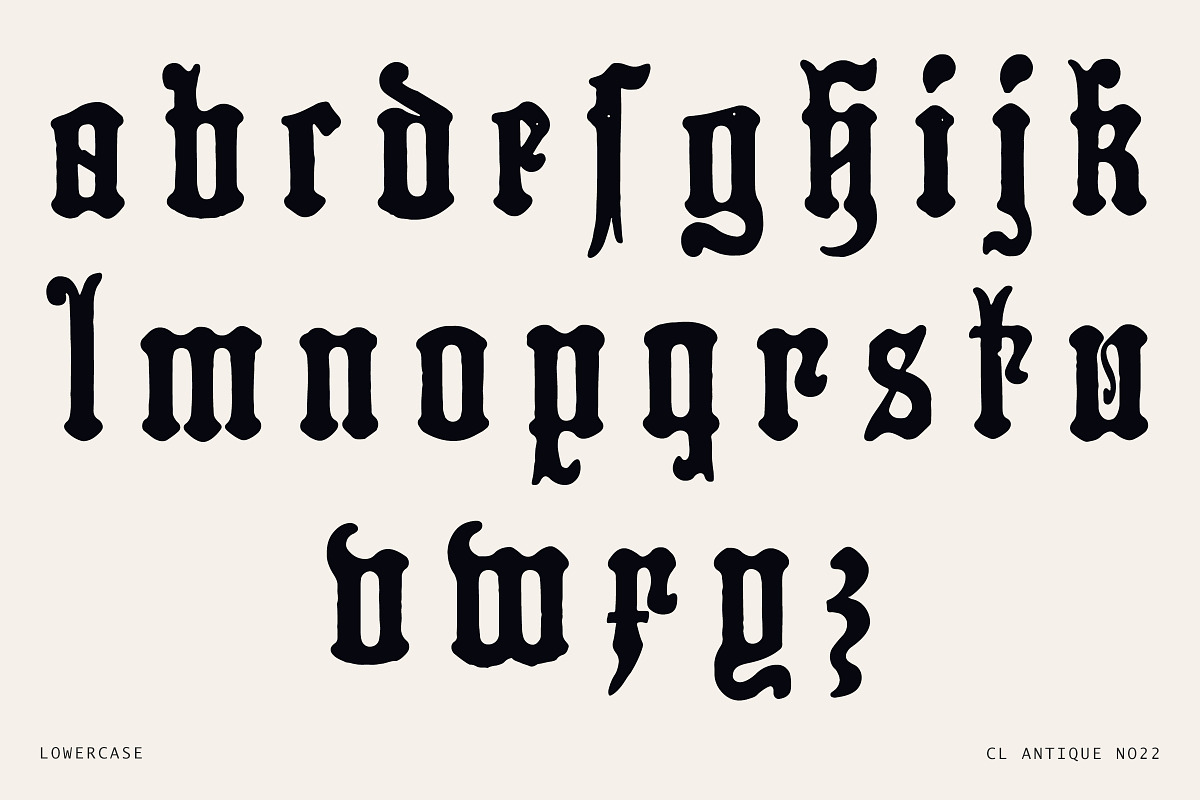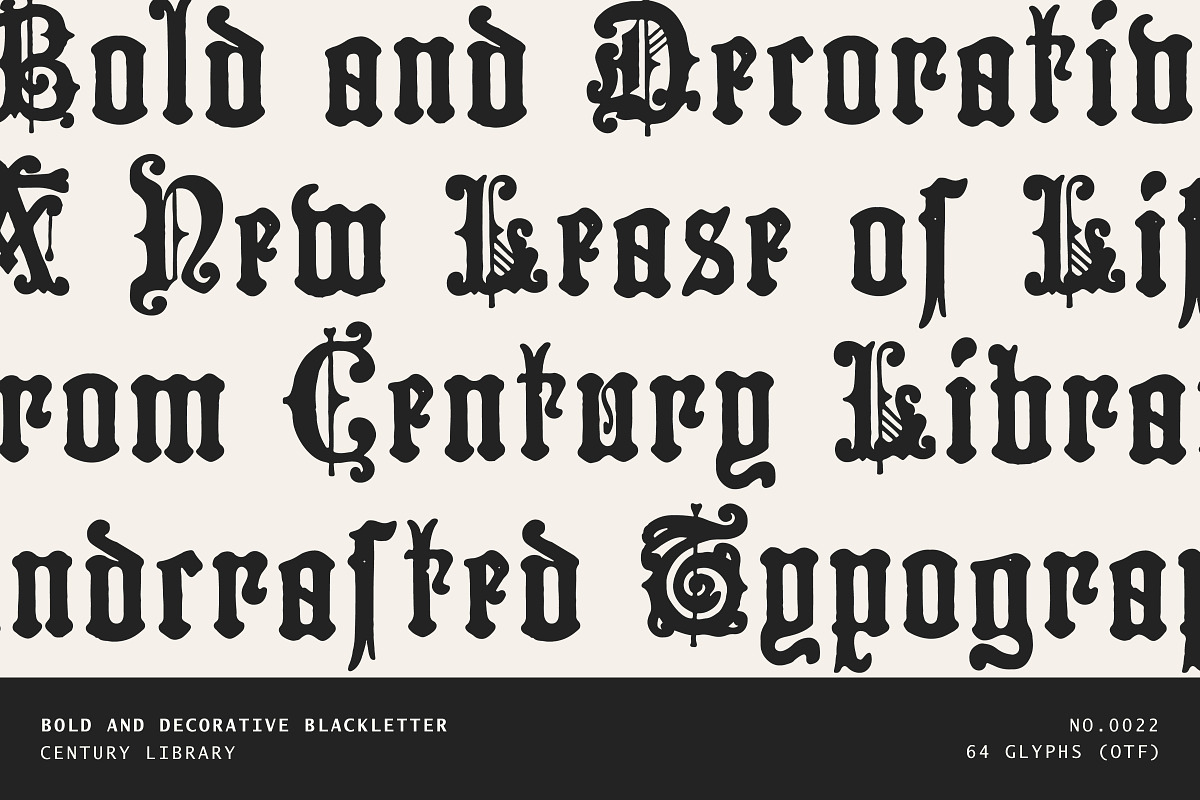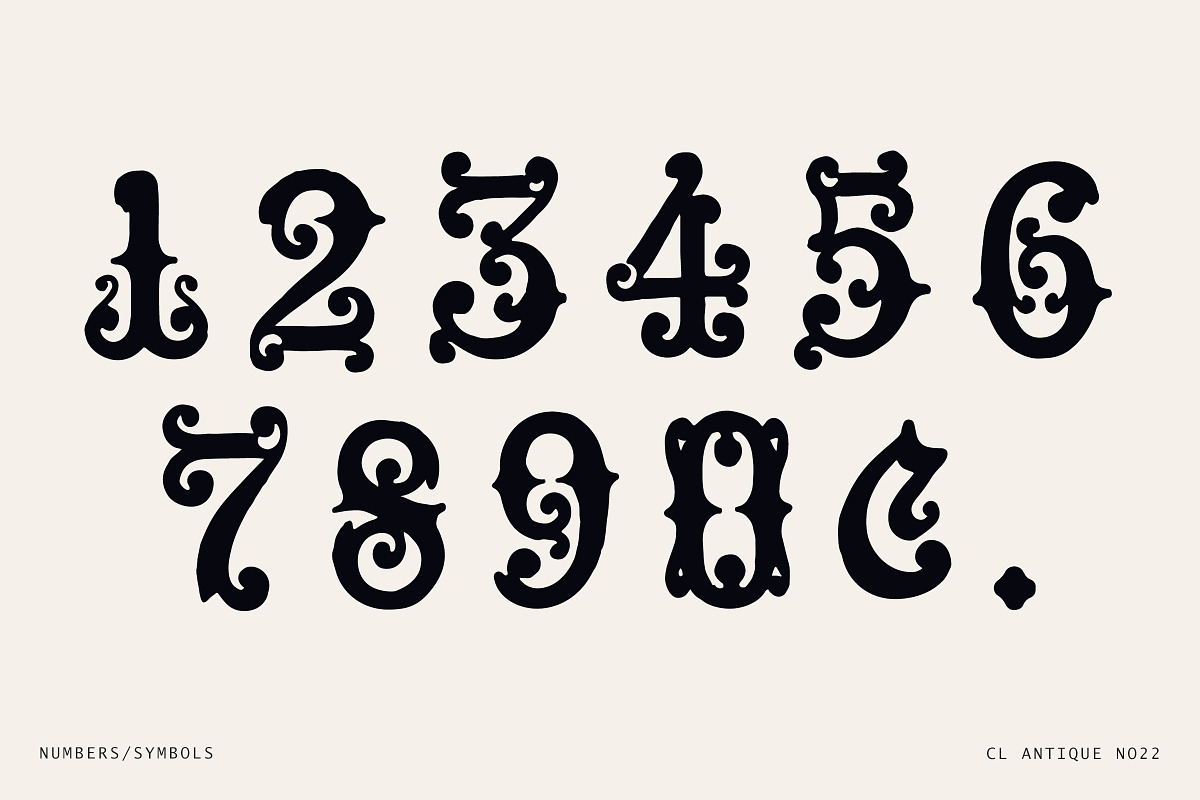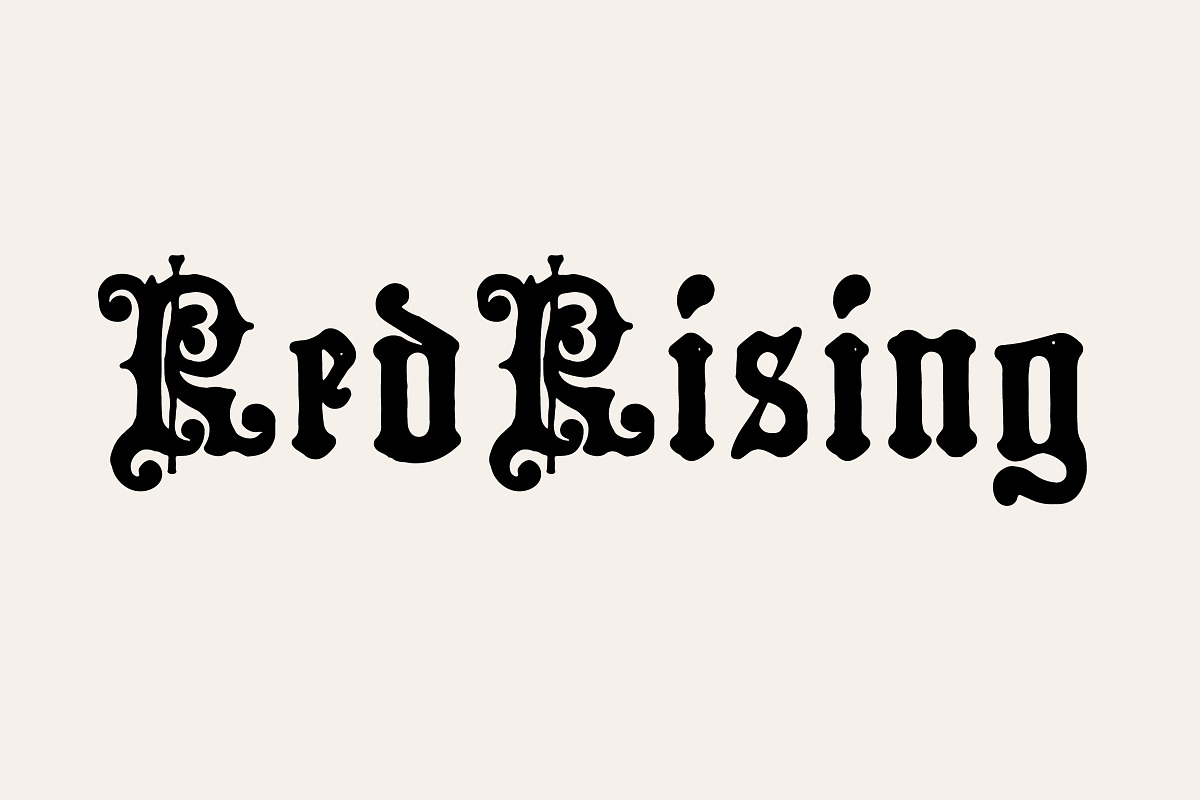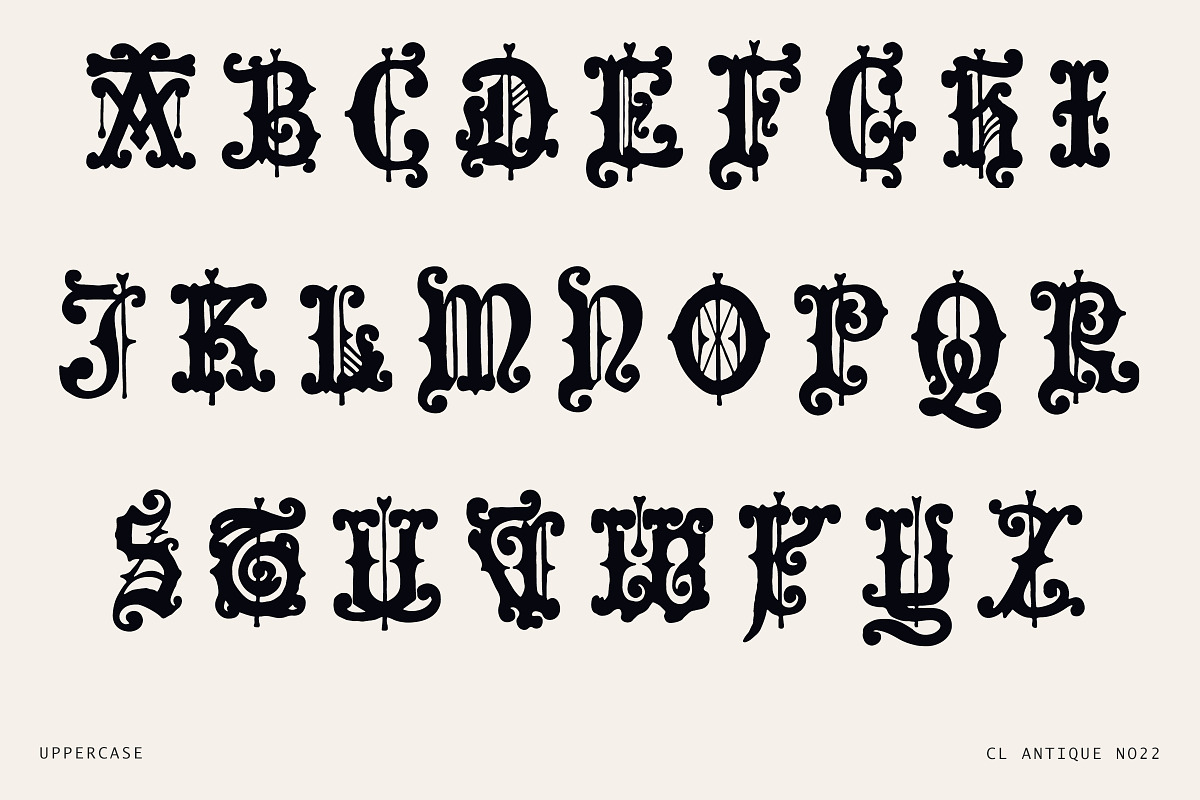
Decorative Gothic Display Font
CL Antique No.22 is a loud, richly decorative blackletter that doesn’t hold back. Based on a flamboyant 19th-century alphabet, this font was restored with care from antique print specimens and brought into the modern age as a functional OTF file.
Each letter is thick with personality - think dark academia meets circus poster meets medieval manuscript. If you’re looking for subtle, this ain’t it.
Perfect for gothic album art, statement branding, heavy editorial, show posters, book covers, or anything that needs that extra dose of old-world flair with edge.
- Uppercase A–Z
- Lowercase a–z
- Numerals 0–9